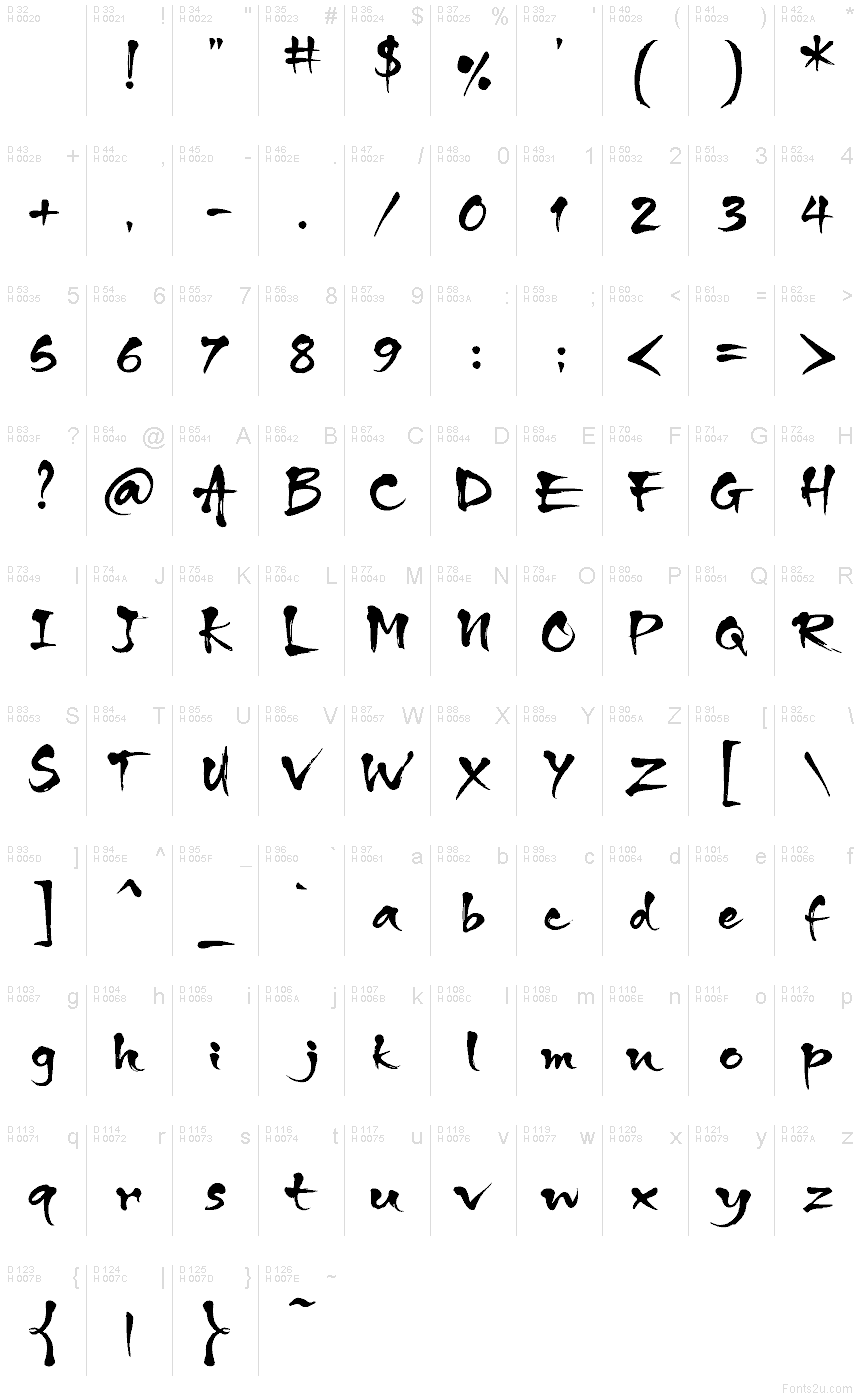
Spell of Asia
Spell of Asia font by Cat.B captures an expressive and artistic flair with its brush, handwritten appearance. The font features organic shapes with a brush-like texture, adding a unique Asian-inspired creativity to each letter. Its calligraphic vibe brings harmony to design projects and visual arts for a truly natural flow that is delicate yet crafty.
Use Spell of Asia in invitations, branding, packaging design, posters, wallpapers and paintings, social media posts and covers. Use it for bookmarks designs or book covers that the reader will love before they start the adventure inside the books’ pages.